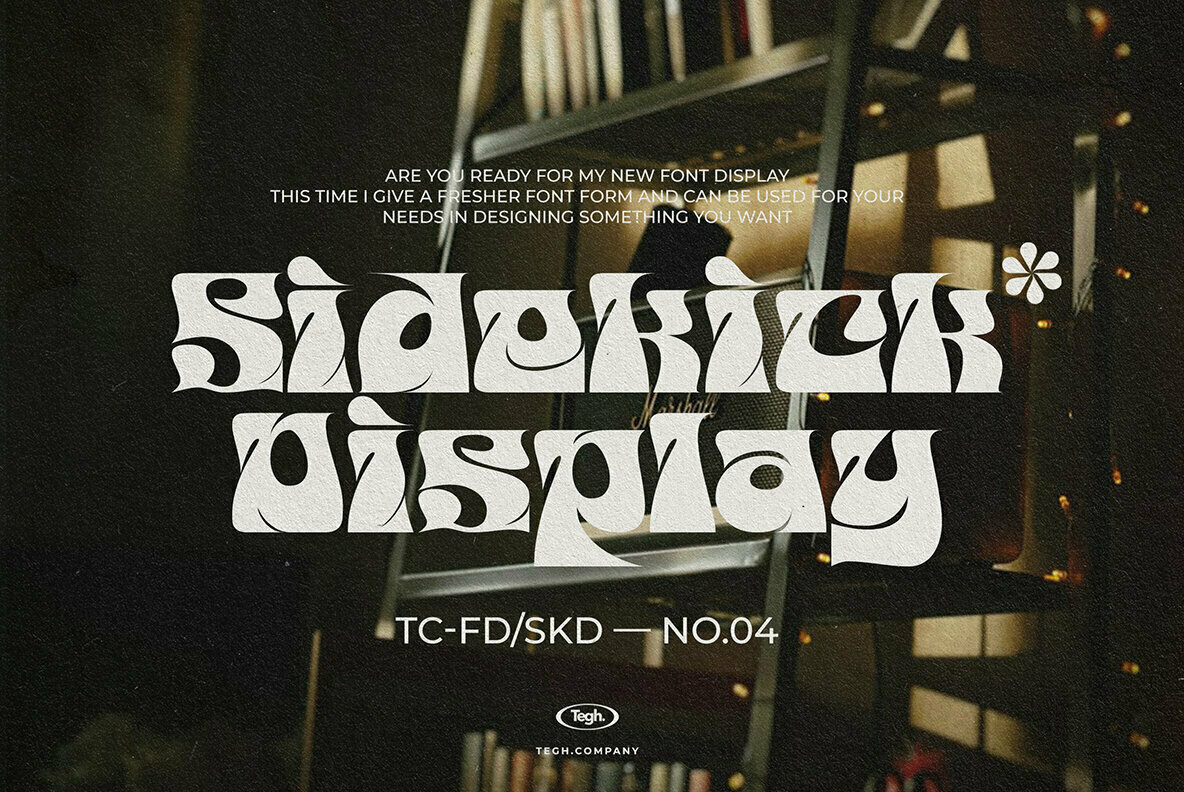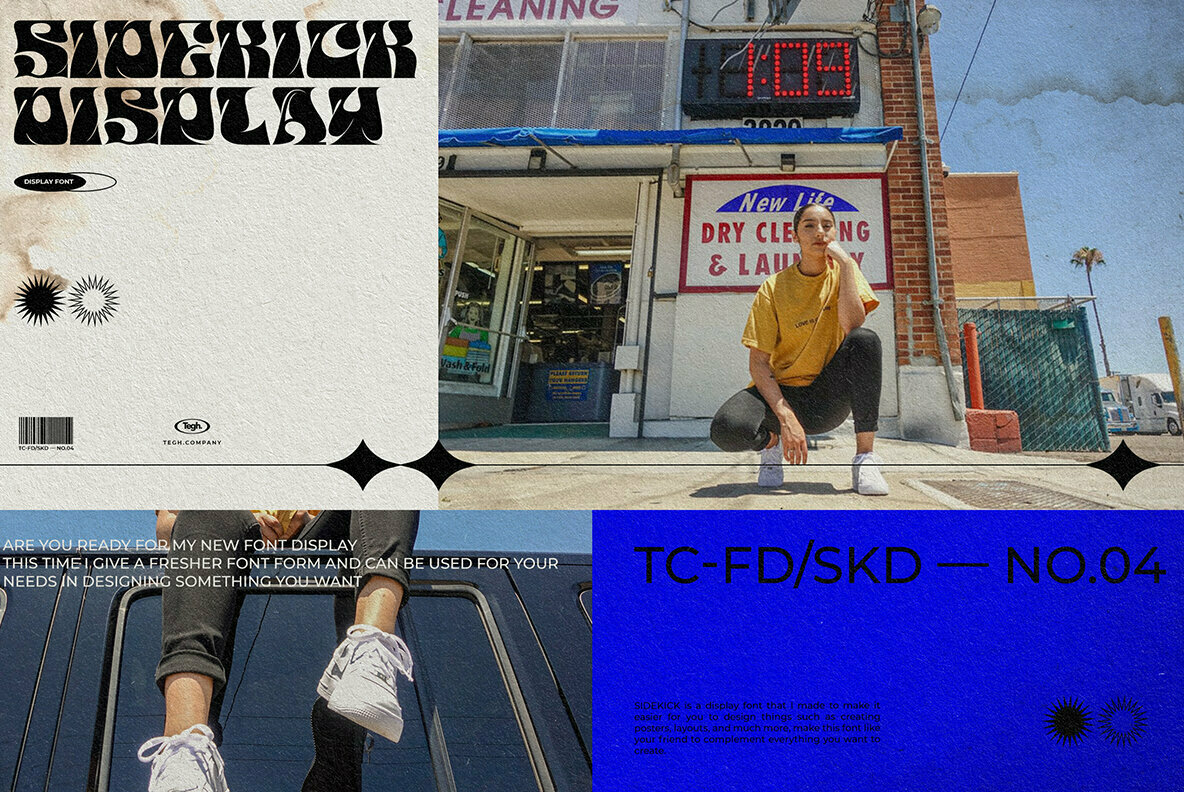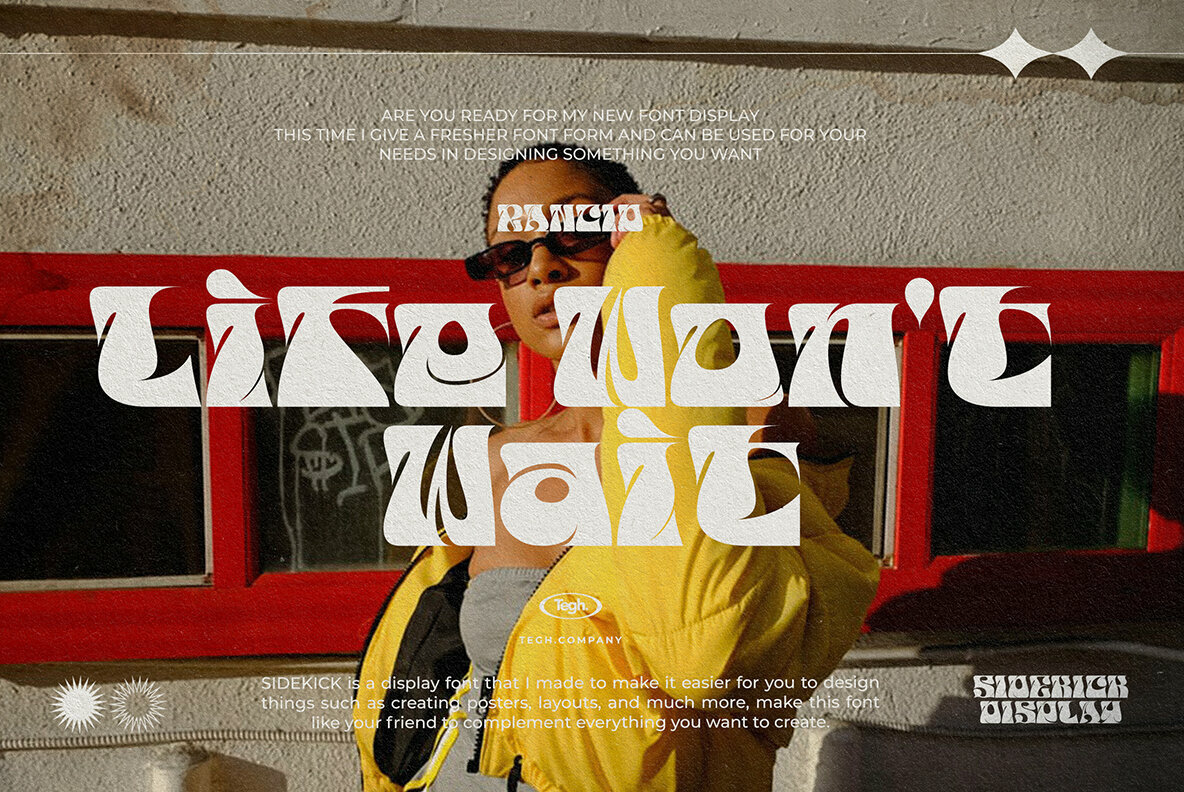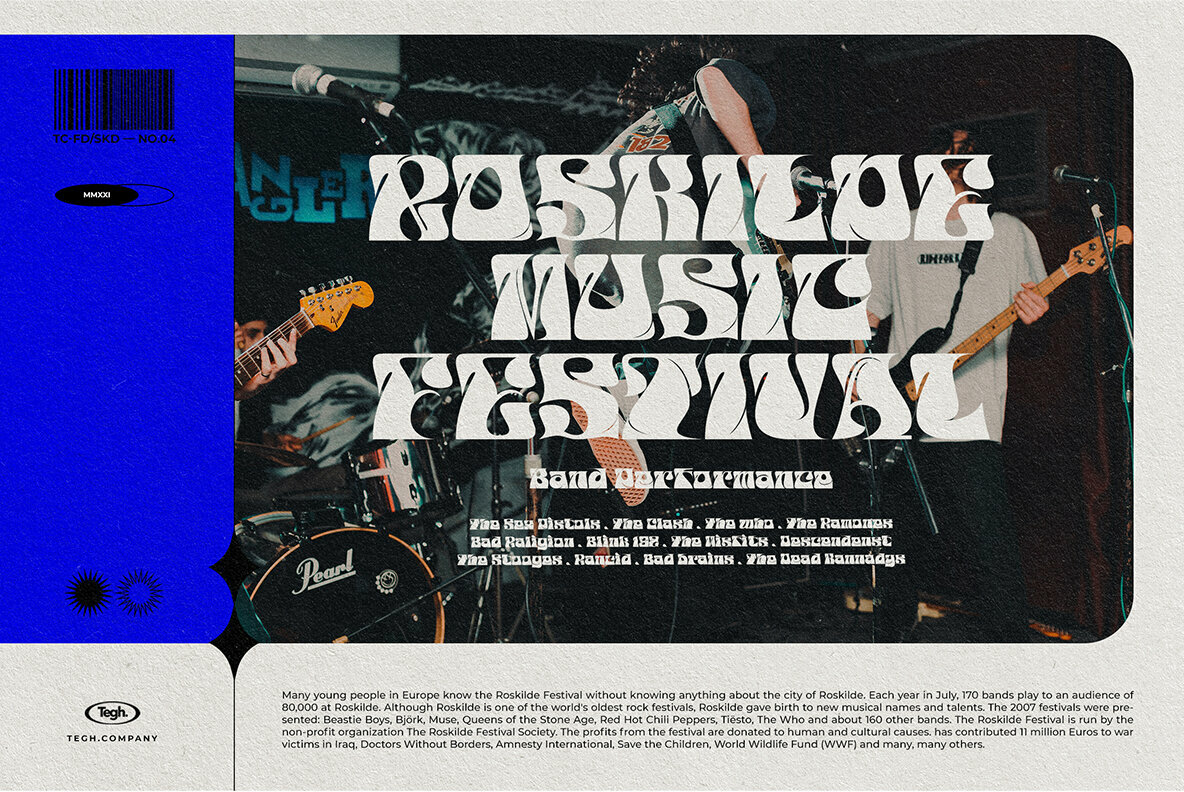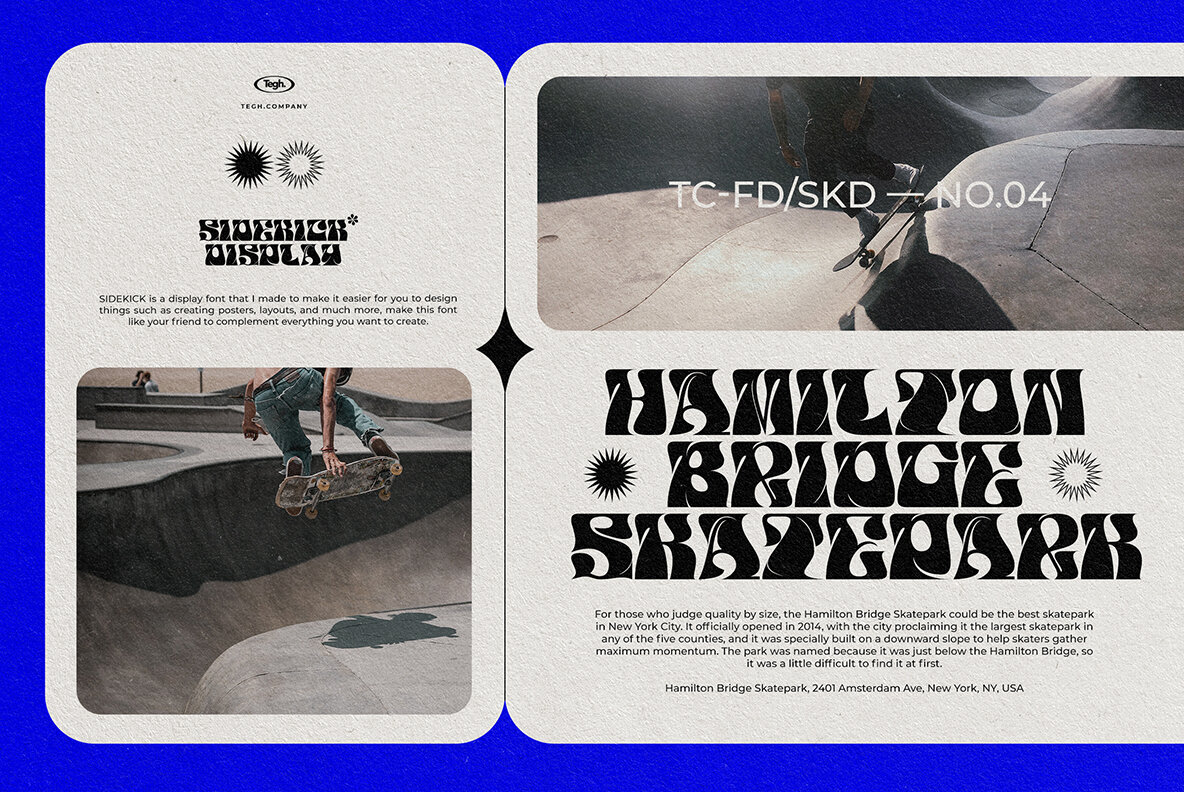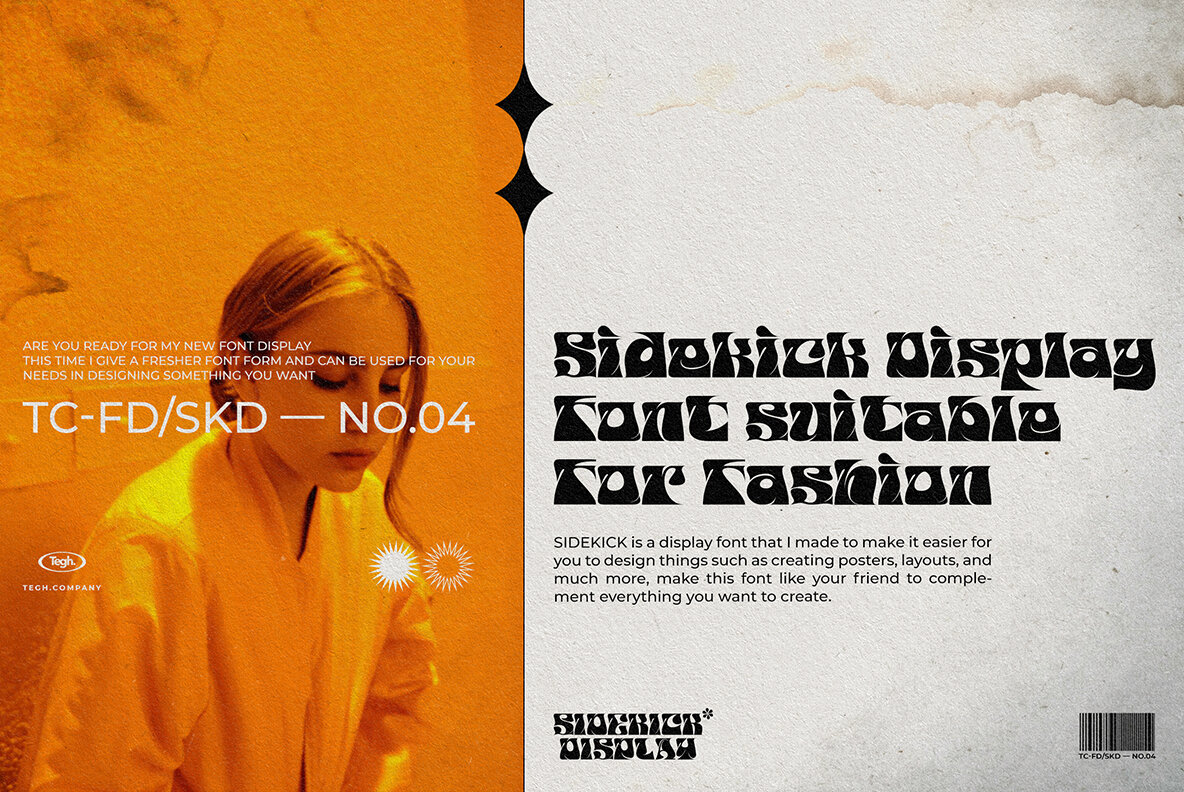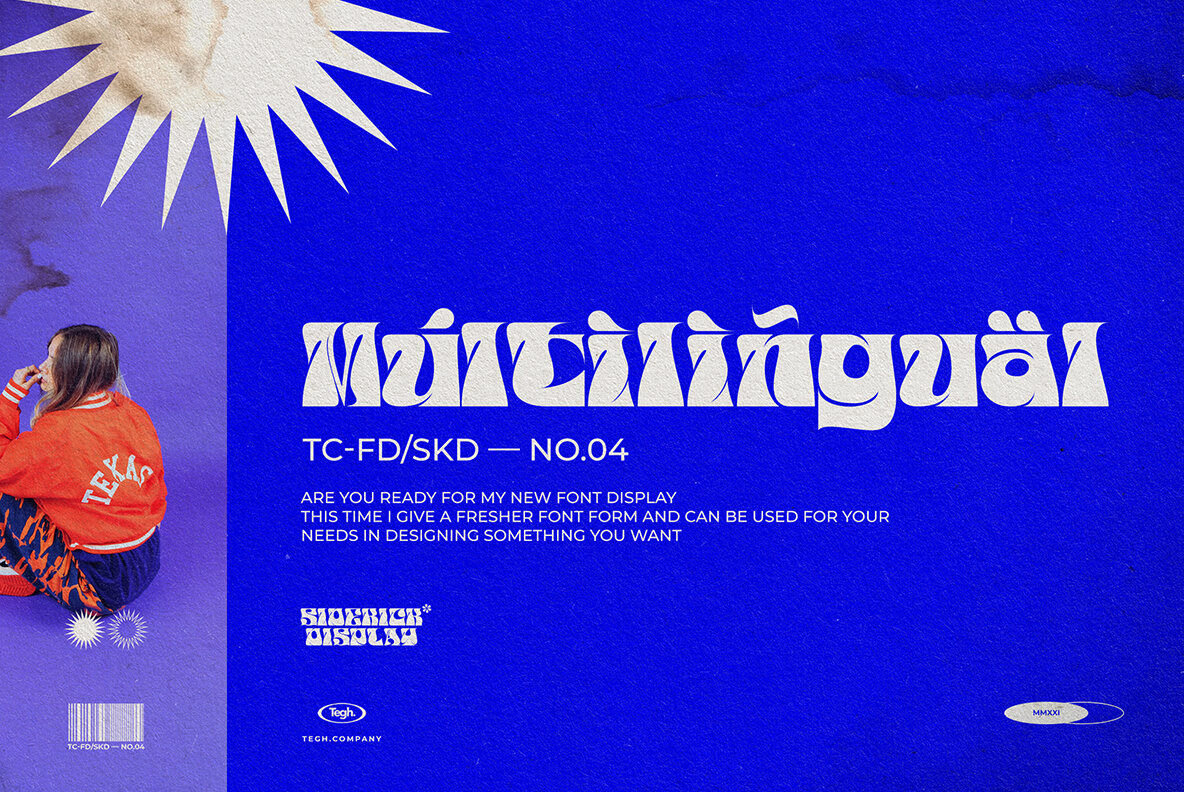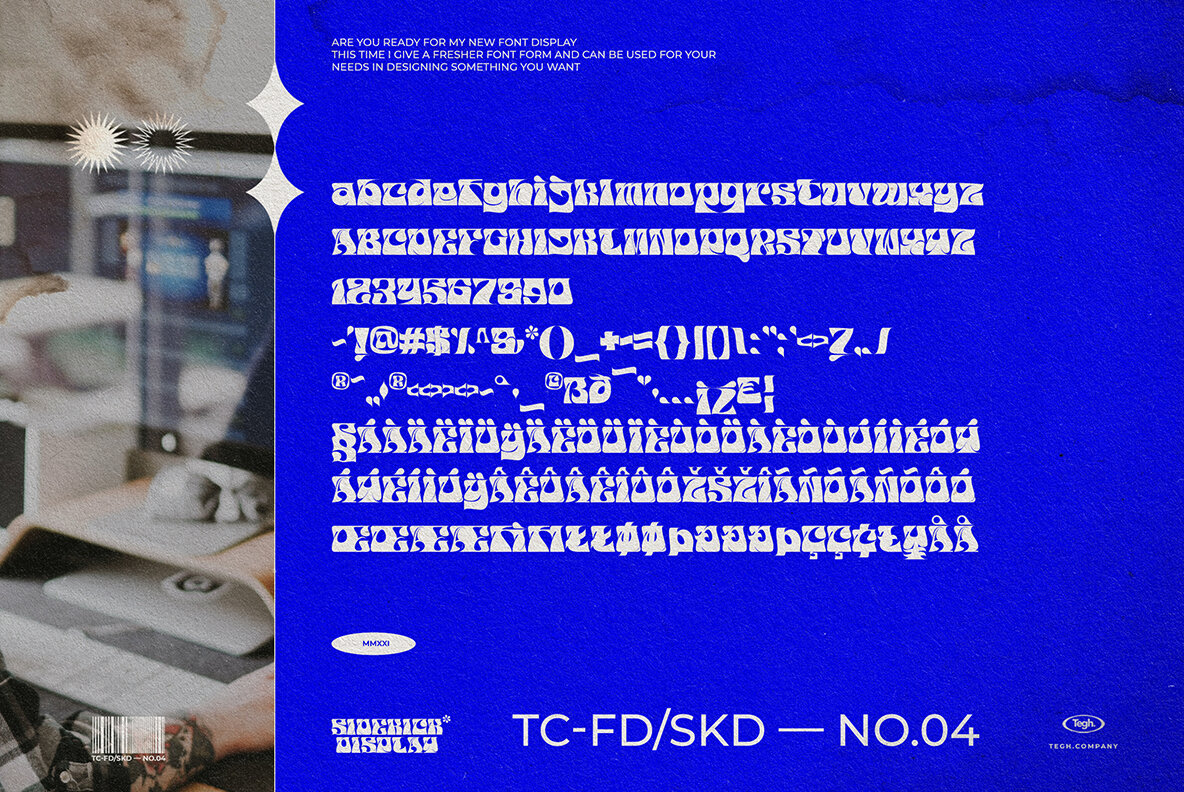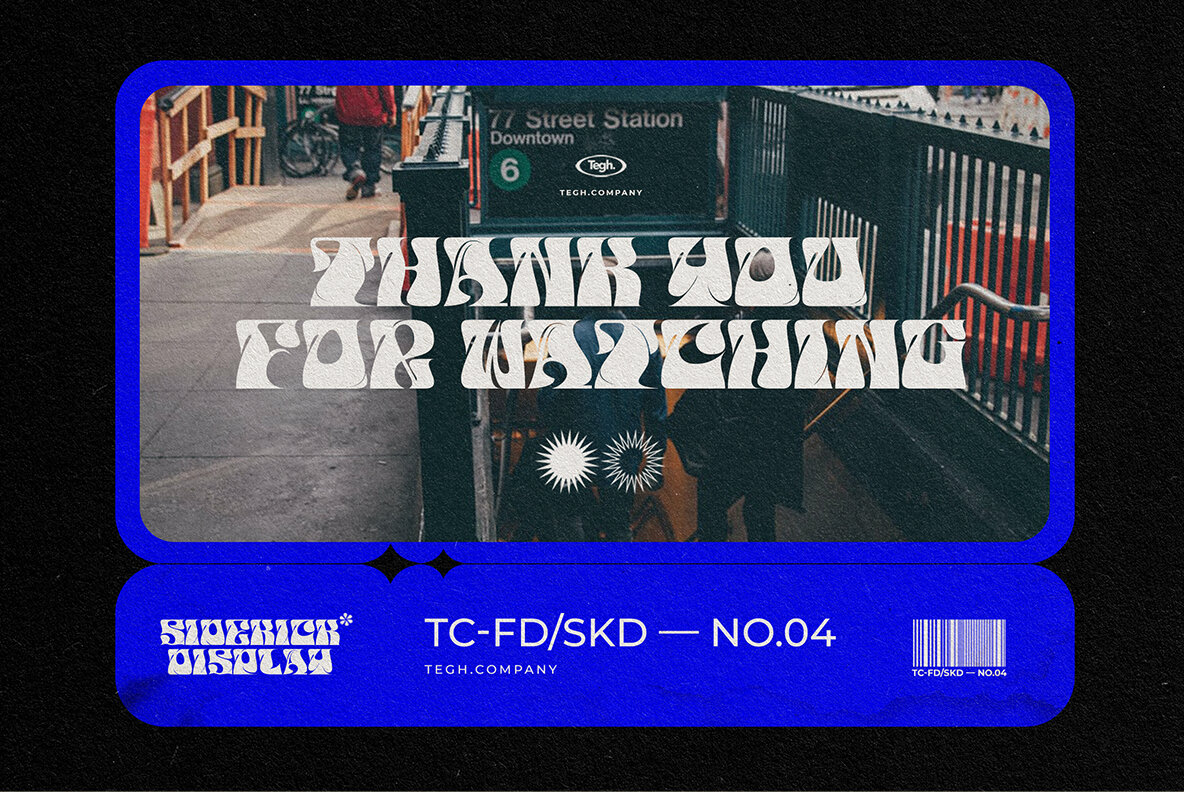
Sidekick Display Font
Sidekick Display Regular
Sidekick Display emerges as a vibrant typeface tailored for designers aiming to make a bold impact. Its quirky style is crafted to enhance projects ranging from posters to digital designs. With each character thoughtfully designed, this font brings a unique flair emphasizing creativity and distinctiveness. Features:Sidekick Display: A Distinctive Typeface for Bold Designs